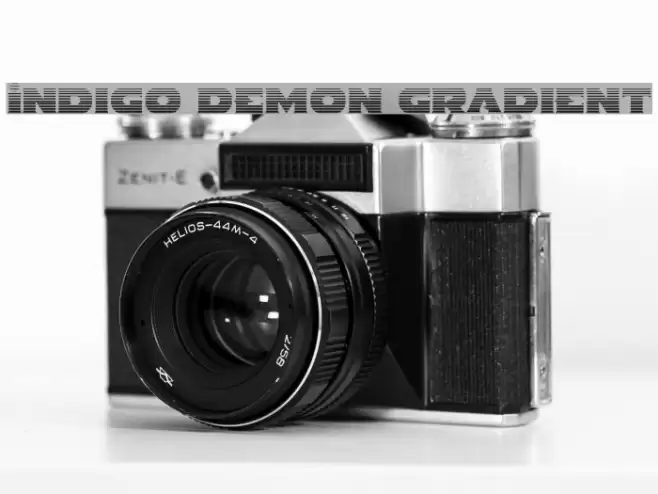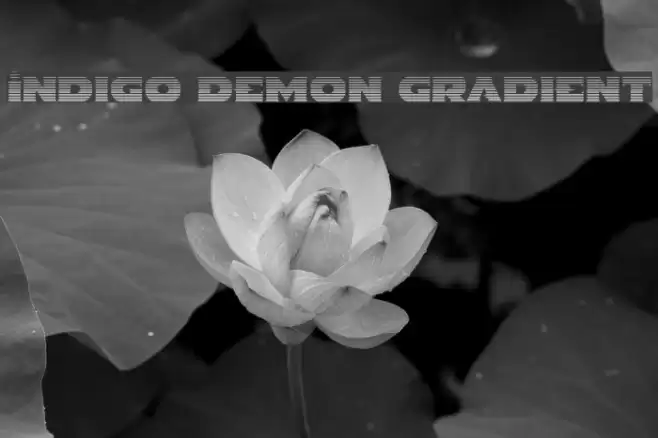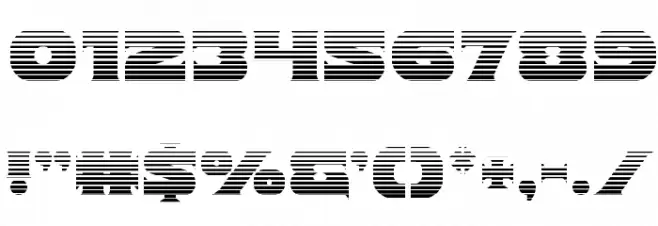
Indigo Demon Gradient Font
Indigo Demon Gradient Description
This font features a bold, futuristic design with a distinct horizontal line pattern running through each character, creating a dynamic and eye-catching effect. The uppercase letters are strong and geometric, while the numbers and special characters maintain the same bold style. The consistent use of horizontal lines gives the font a sense of movement and energy, making it ideal for modern and tech-oriented designs. The characters are evenly spaced, ensuring readability despite the intricate design. This font is perfect for projects that require a standout, contemporary look.
A bold, futuristic font with horizontal line patterns for a dynamic, modern look from Modern fonts.
- Proposed Projects: Ideal for tech branding, futuristic posters, video game titles, and sci-fi themed projects.